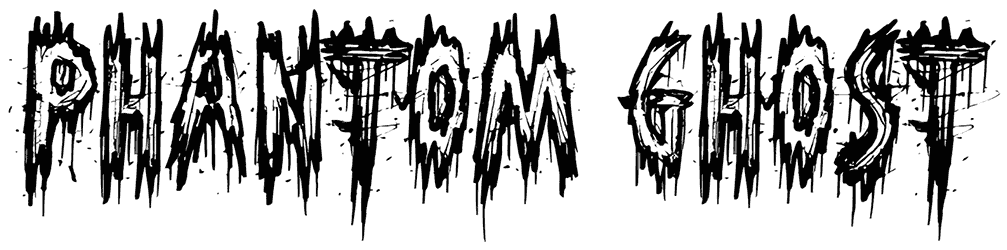
Phantom Ghost Font
Phantom Ghost is a new style of horror font in which special attention has been paid to the graphics of blood drops and scratches that seem to flow on the letters. Don’t be surprised if you add this hardcore font to your collection even without lowercase letters and numbers.
It adapts well to designs that are associated with blood, witches, horror, and darkness, and can add a relatively impressive visual concept to posters and advertisements.